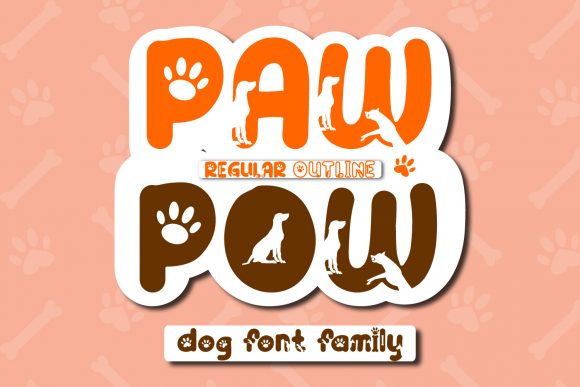
Introducing Paw Pow Font - The Enchanting Display Font That Captures Hearts!
Unleash your creativity with Paw Pow Font, a captivating display font family that will add a touch of charm and playfulness to your designs. Inspired by the innocence and wonder of childhood, Paw Pow is the perfect choice for projects that aim to evoke a sense of joy and authenticity.
Step into a world of imagination and whimsy with Paw Pow. Its playful and expressive characters dance across the page, creating an atmosphere of pure delight. Whether you're designing children's activities, crafting personalized gifts, or creating eye-catching t-shirt designs, Paw Pow will bring your vision to life with its infectious energy and captivating charm.
With Paw Pow, you'll have a font that speaks to the heart. Its friendly curves and cheerful strokes create a welcoming and inviting ambiance, making it the perfect choice for designs that aim to connect with audiences on a personal level. Let Paw Pow be your ambassador of joy, spreading happiness and positive energy wherever it goes.
So, why settle for ordinary fonts when you can have the extraordinary? Download Paw Pow Font today and embark on a creative journey like no other. Let your imagination run wild and create designs that radiate joy, spark laughter, and leave a lasting impression on your audience.